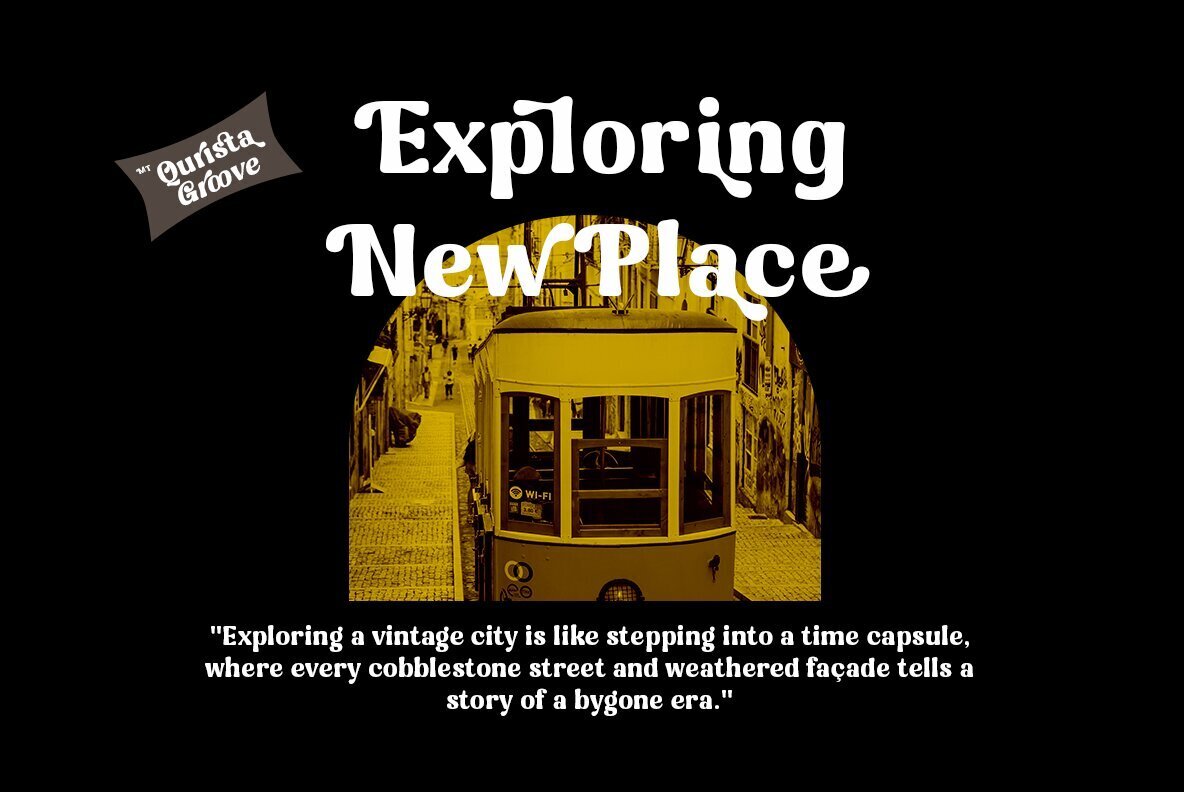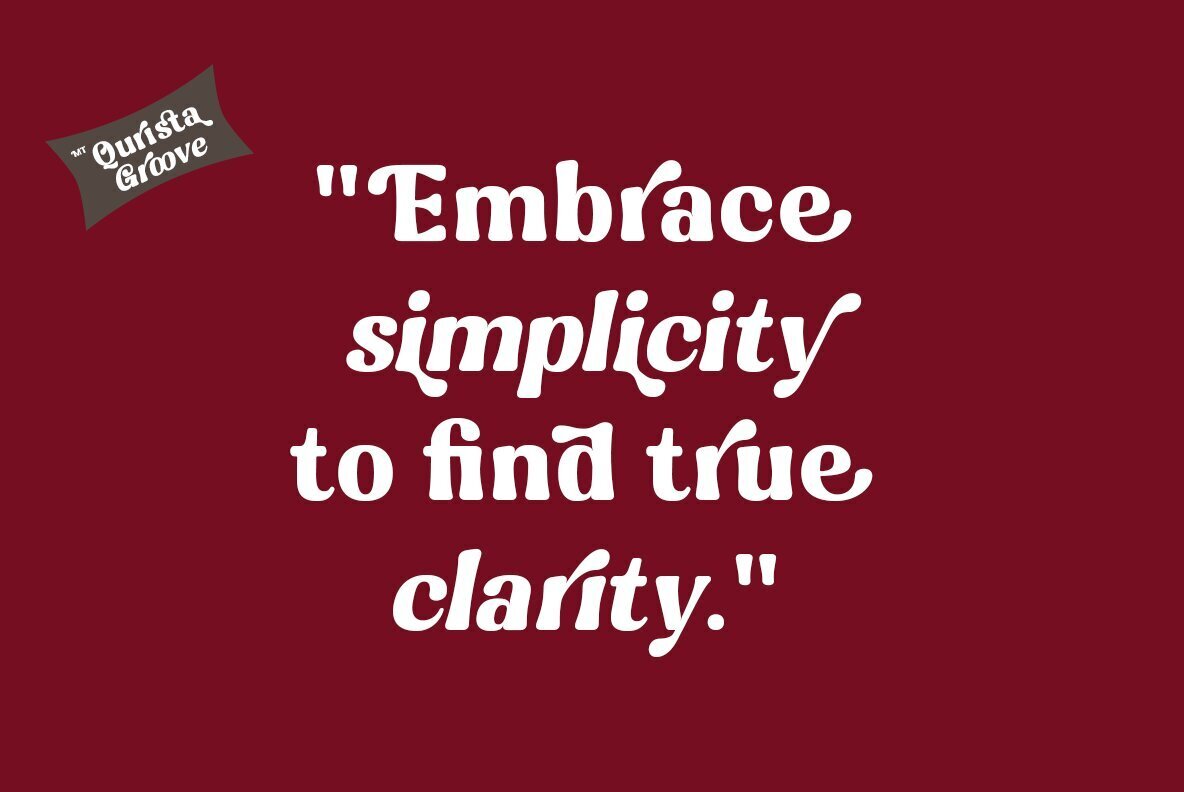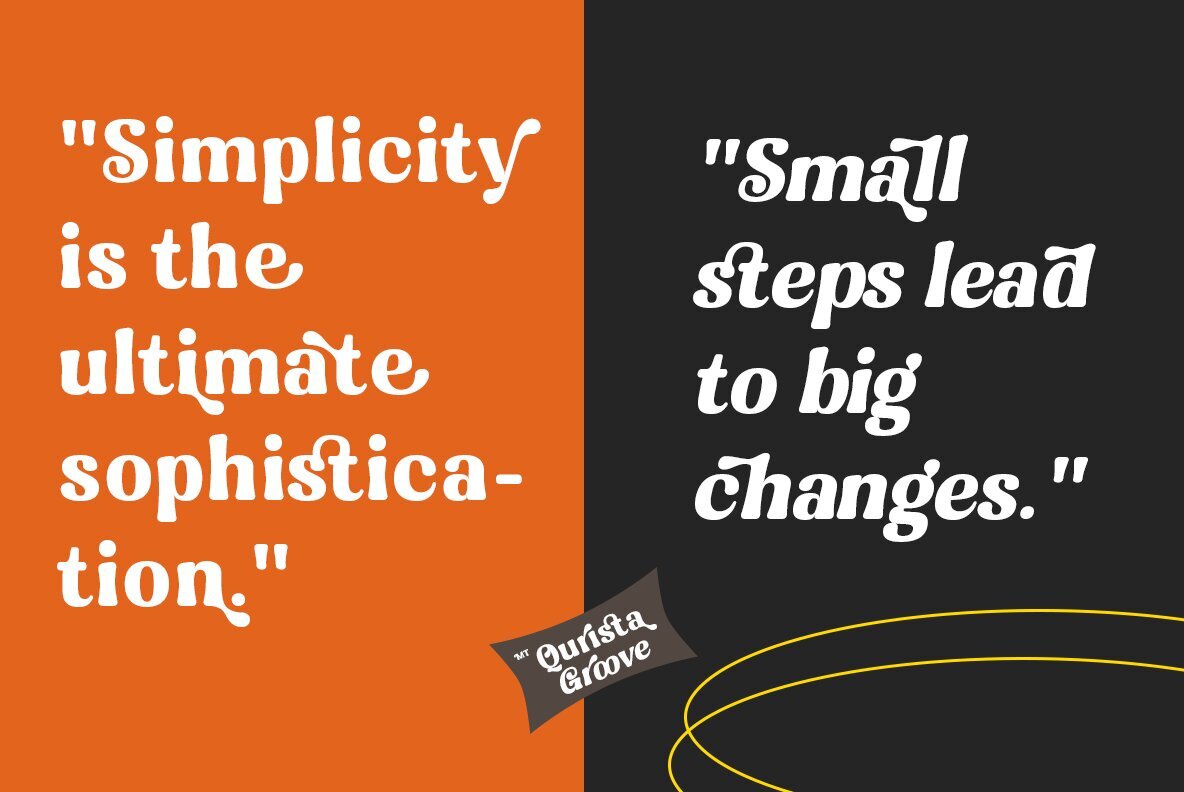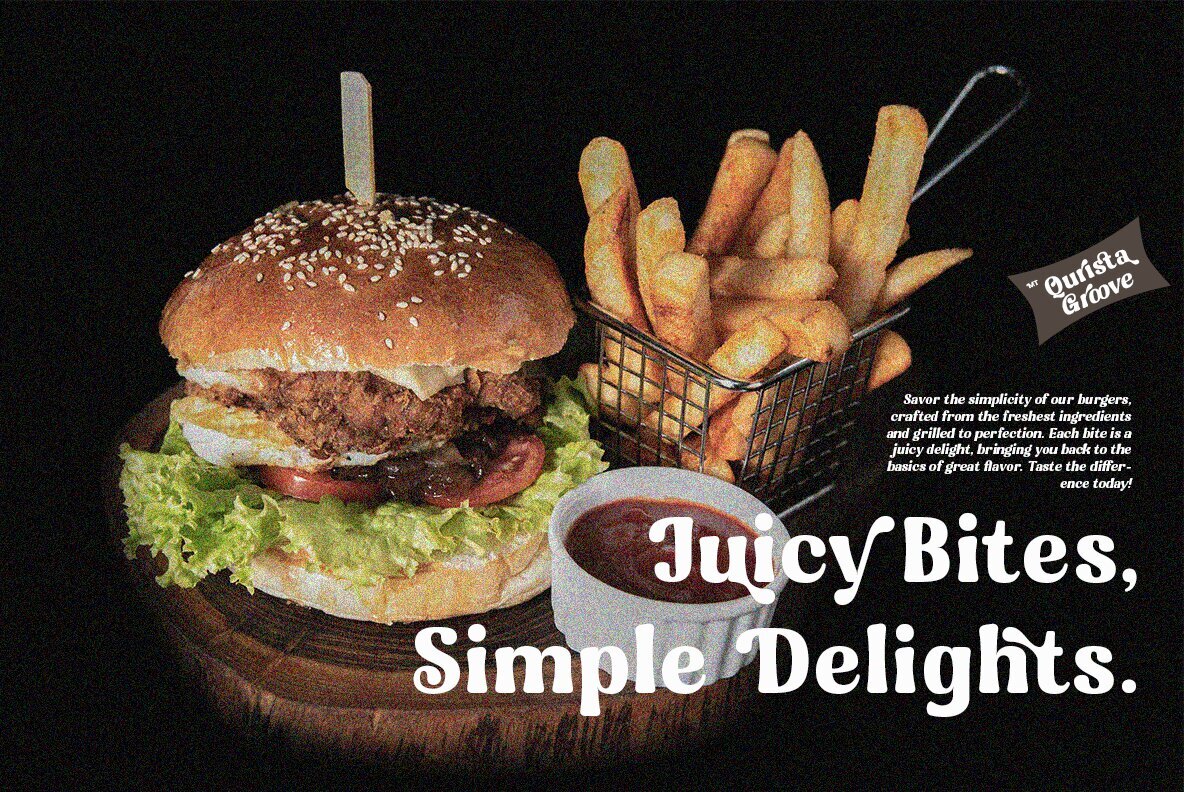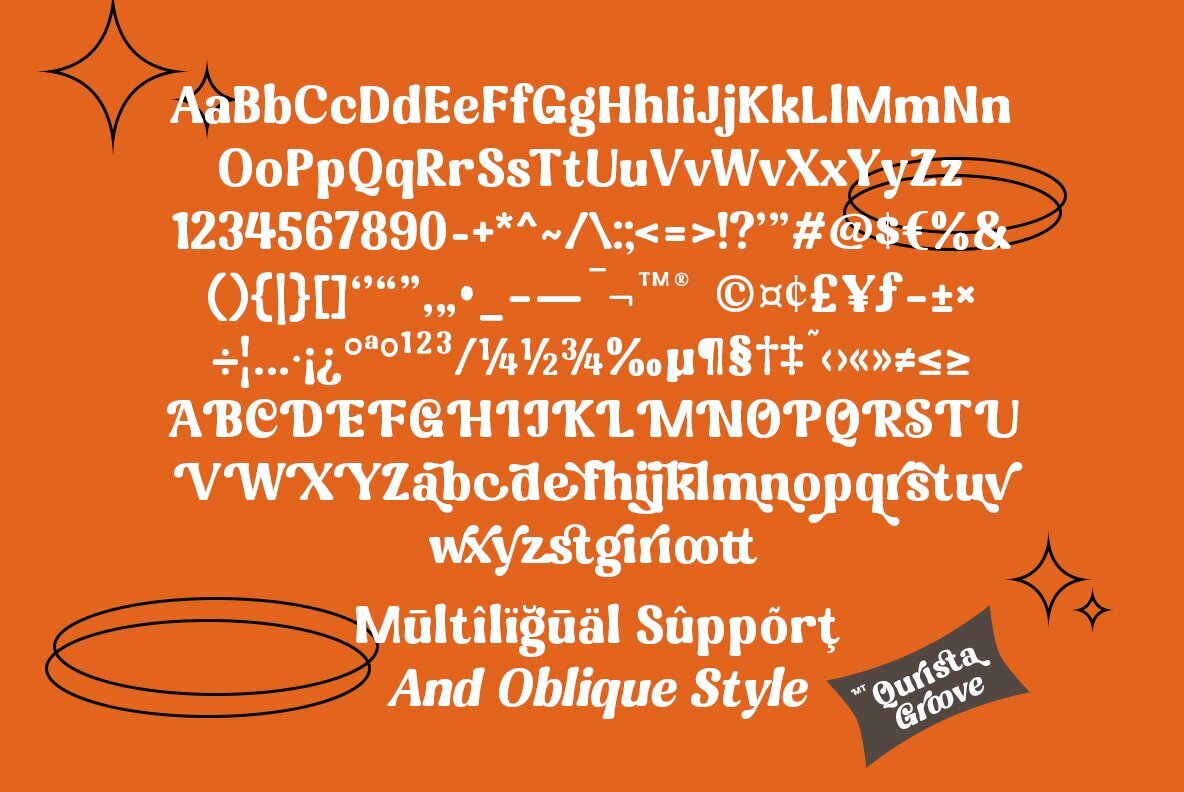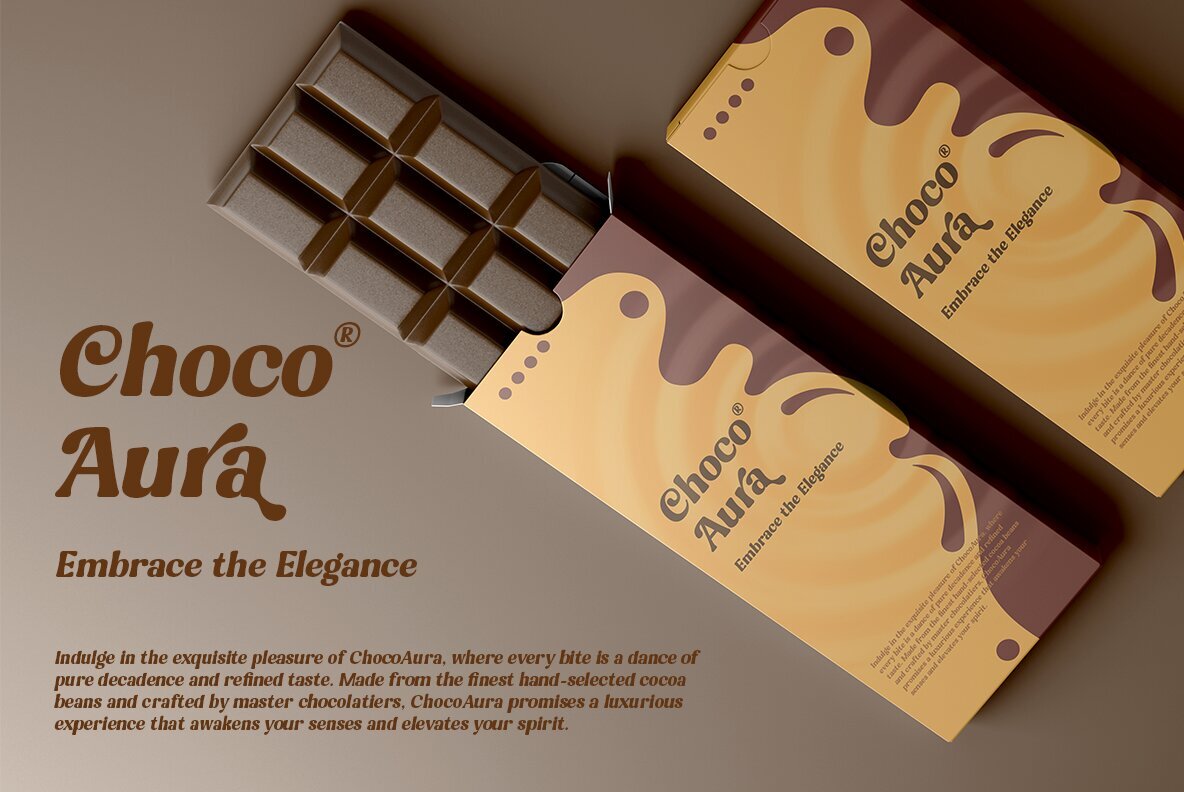
Mt Qurista Groove Font
MT Qurista Groove Regular
MT Qurista Groove Oblique
Introducing MT Qurista Geoove, a serif font that elegantly blends classic sophistication with modern groove style. Perfect for a variety of projects, from branding and editorial design to web and advertising, Geoove offers a comprehensive character set, high-quality glyphs, and optimized kerning for enhanced readability and visual appeal. Elevate your designs with Geoove's unique charm and contemporary edge.